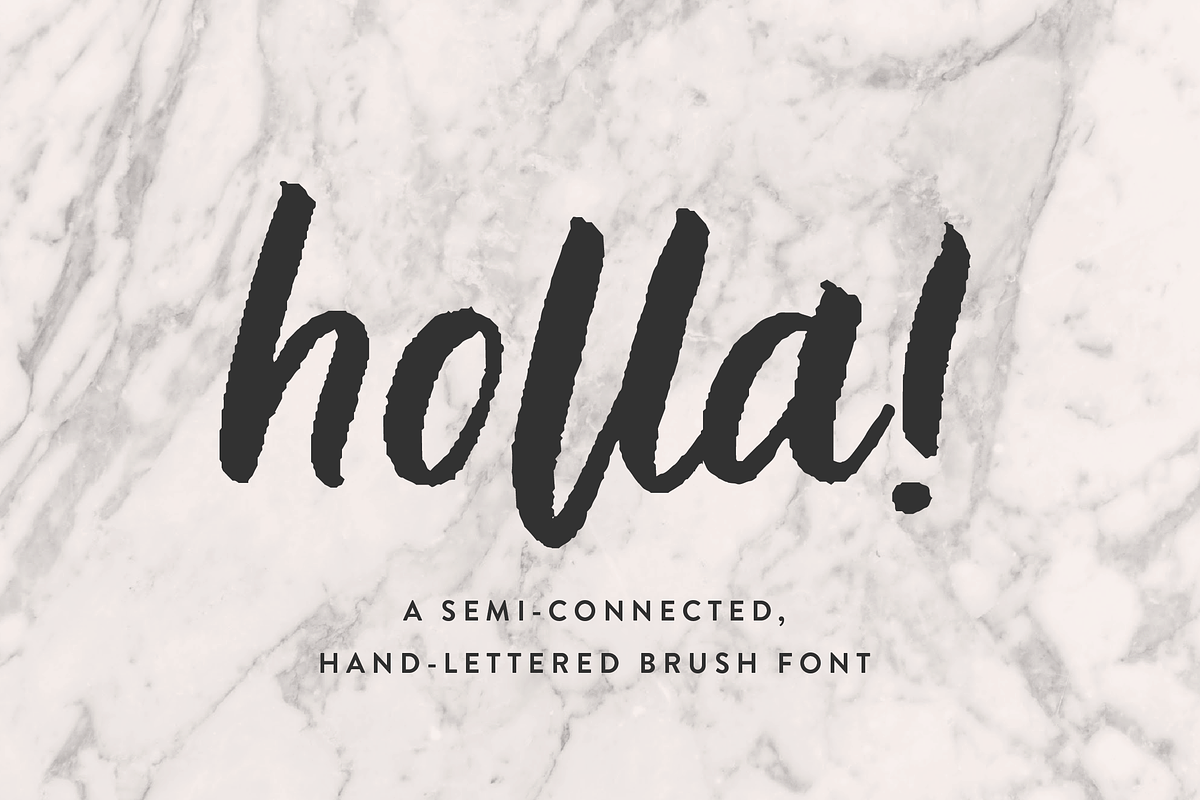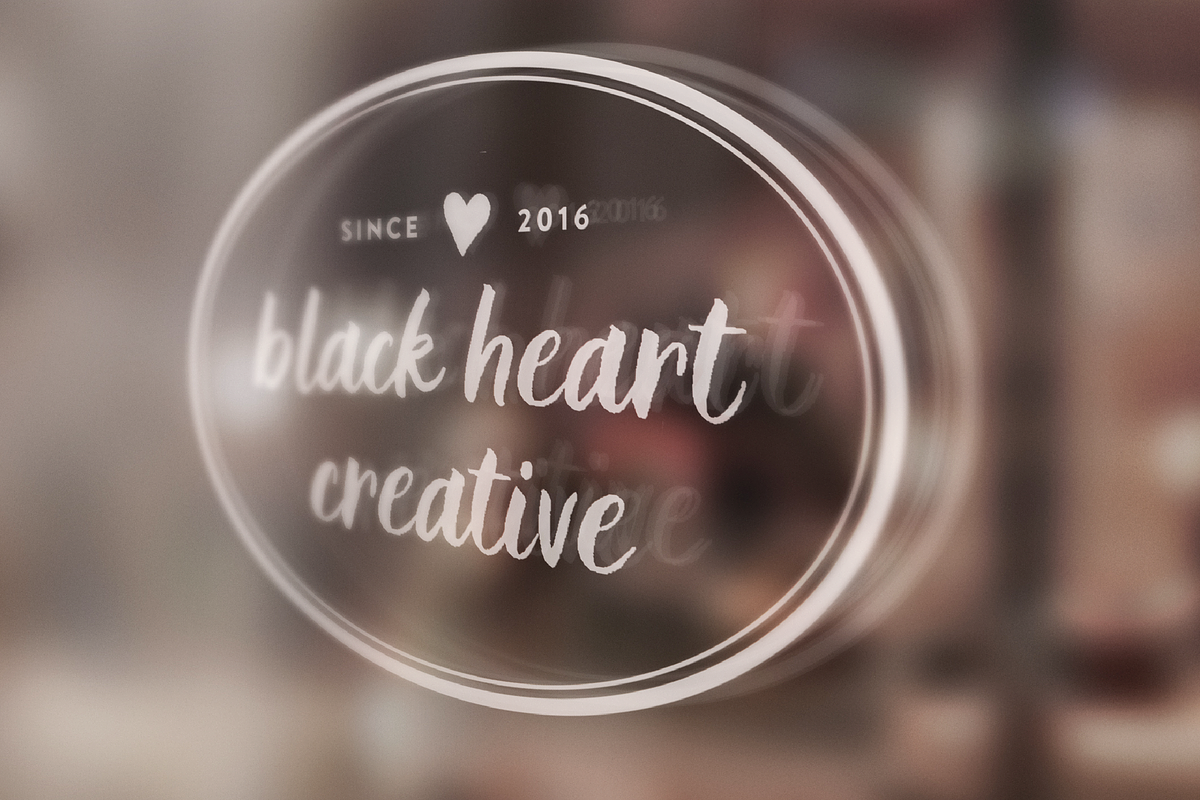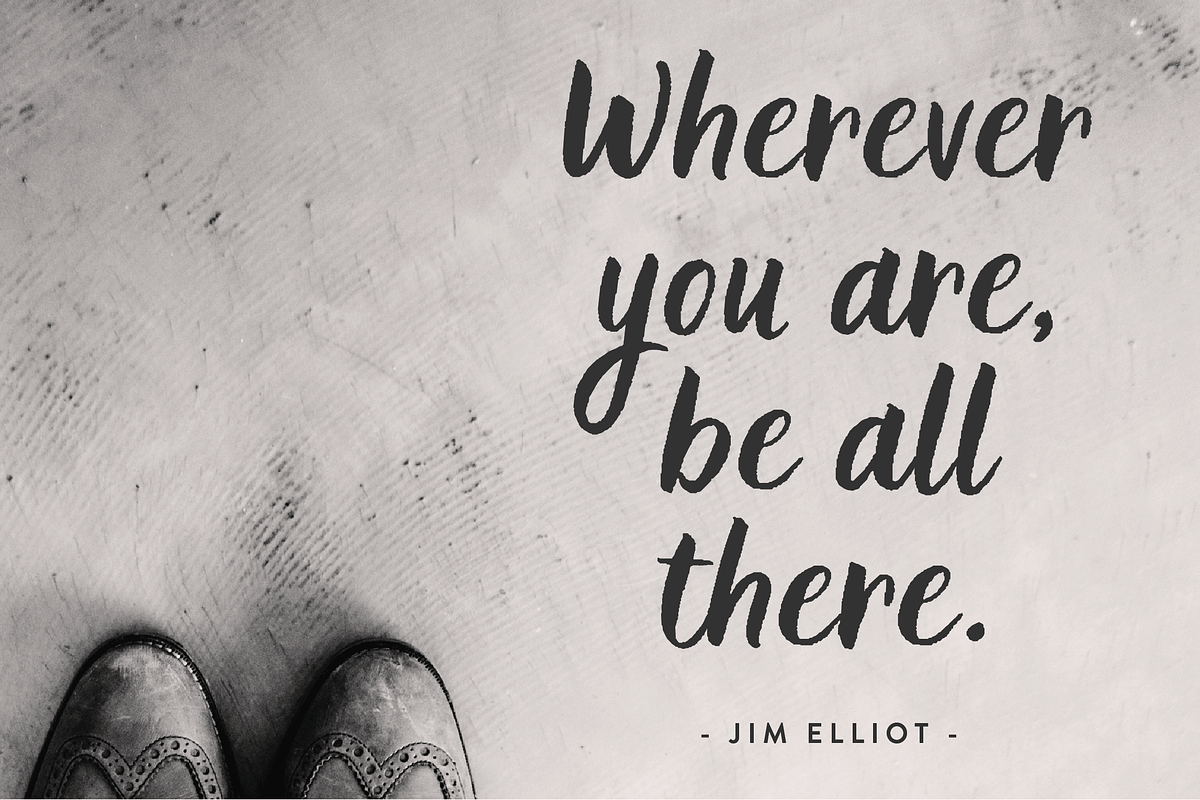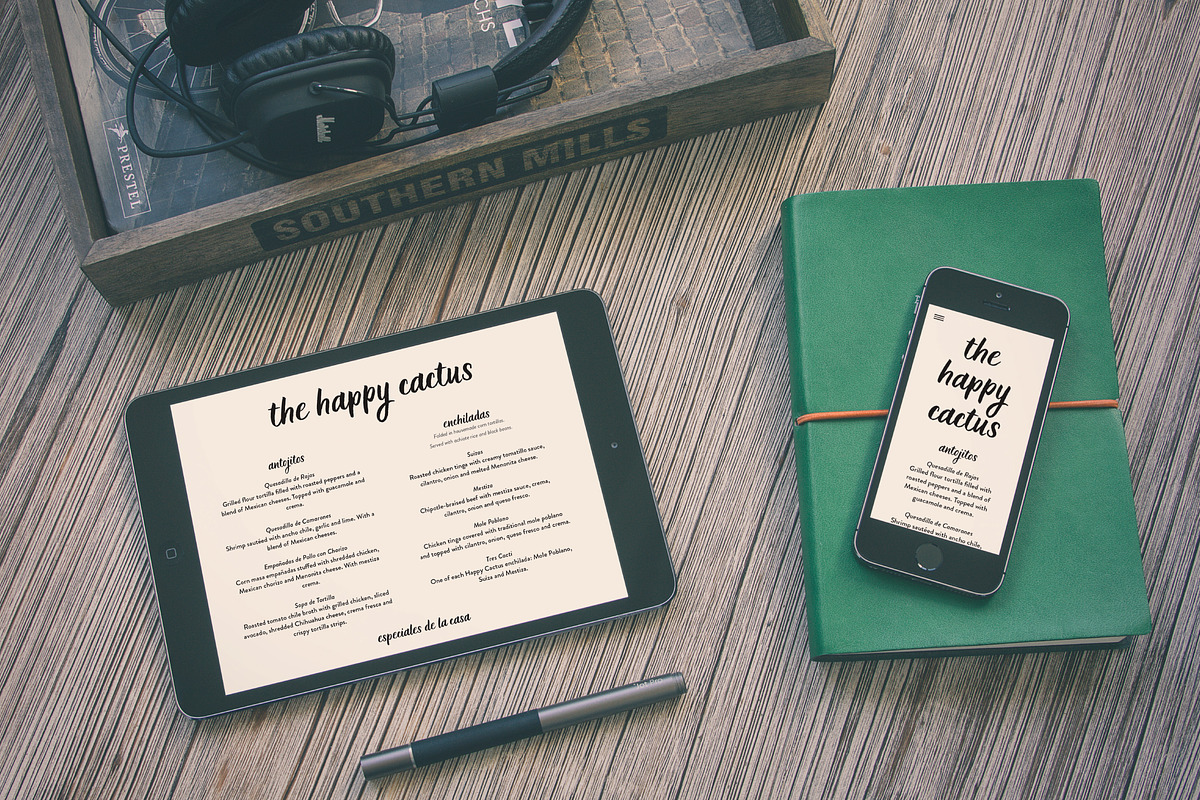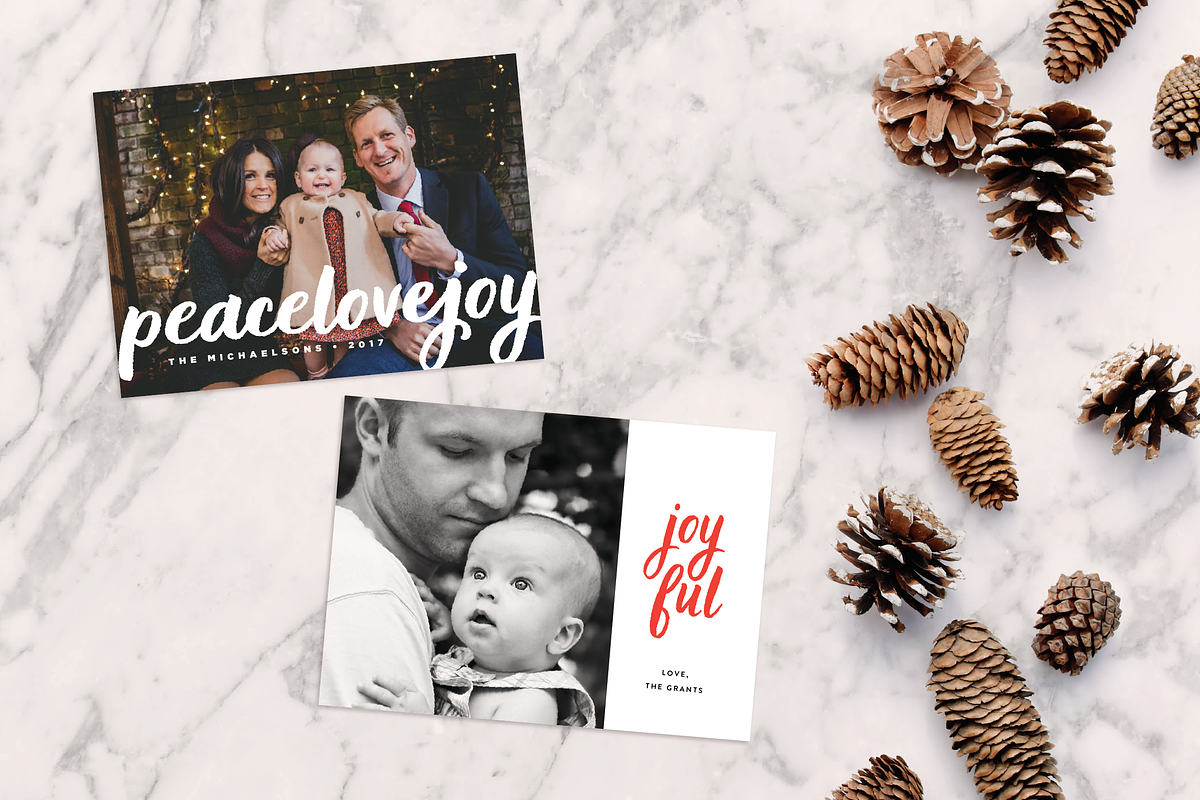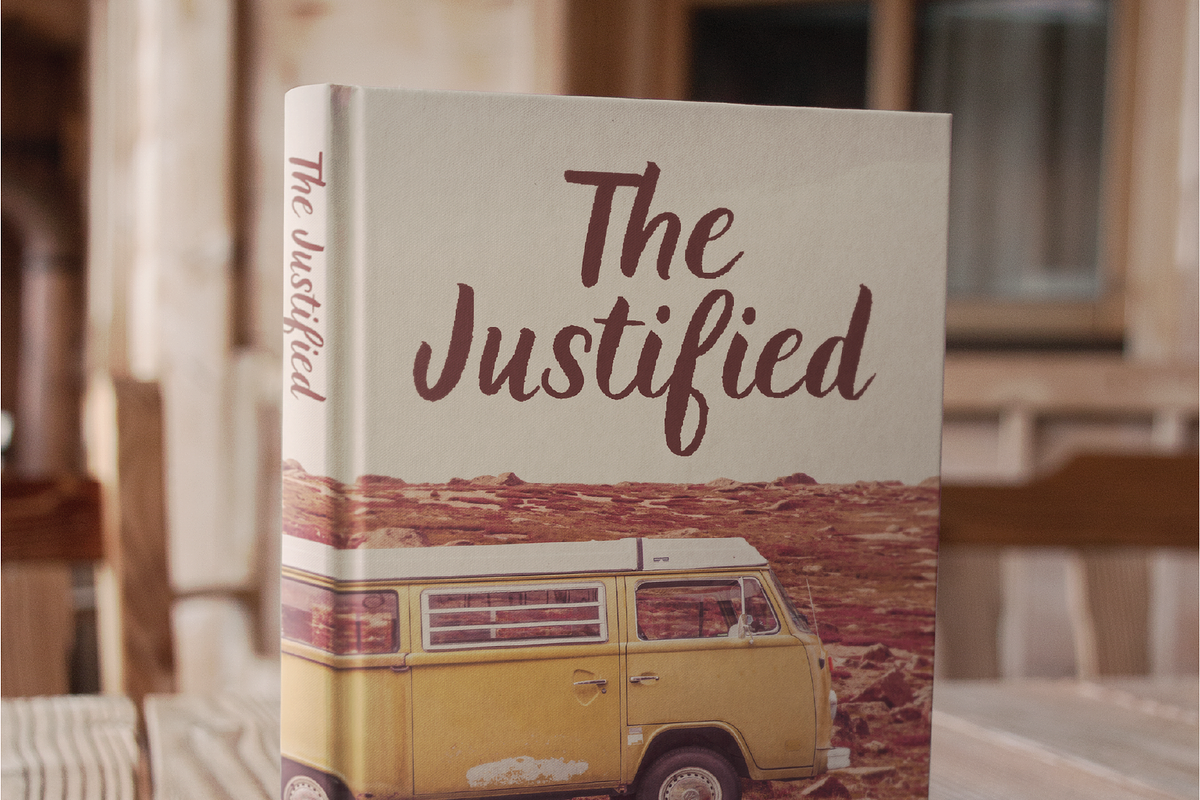
Holla Script Font
Holla Script Font by Up Up Creative is a font selected for branding, posters, packaging, typography.
- Includes multi-language support (for English as well as western and central European languages), a full numeral and punctuation set, additio
- Includes double letter ligatures for all 26 lowercase letters to add a little interest and contrast in your font and to improve the flow of
- Holla Ornaments - A supplementary font, also provided in OTF and TTF formats, containing only 16 glyphs (accessed by typing capital or lower
Why Holla Script Font is worth a look
Holla Script Font by Up Up Creative fits naturally into Branding, posters, packaging, typography.